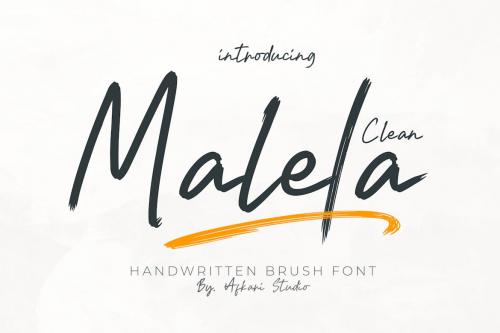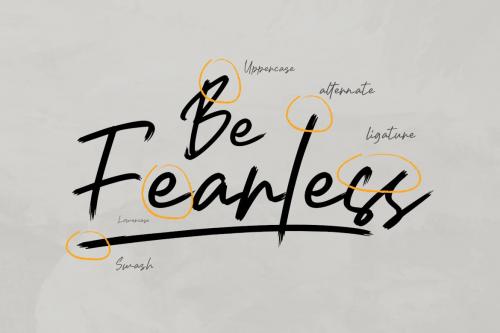
马拉勒手写刷字体清洁
This font is suitable for any branding of your design needs, wedding invitation, romantic project, studio brand, logo, homeware designs, product packaging, social media posts, clothing, poster title, cafe/resto sign, and simply as a stylish text overlay to any background image.
**Features;**
* 2 Styles, Regular & Clean
* Uppercase, Lowercase, Number, and Punctuation
* Standart and Special Ligatures
*Mültîlíñgúãl Sùppört for; ä ö ü Ä Ö Ü ß ¿ ¡ etc.